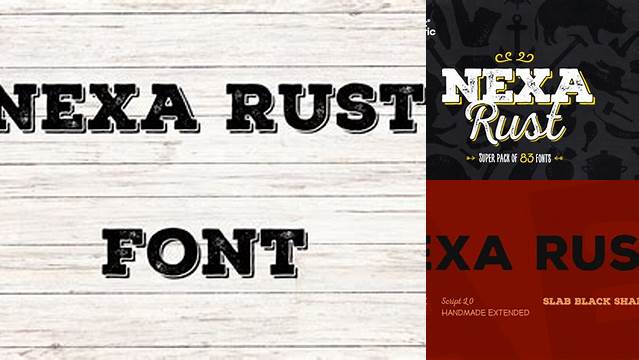
Hey there, design enthusiasts! Are you on the hunt for a font that's both stylish and incredibly versatile? Look no further than Nexa Rust, a complete font family that's available for free download. In this article, we'll dive deep into what makes Nexa Rust so special, why it's a favorite among designers, and how you can get your hands on this amazing font without spending a dime. We'll cover everything from its design and features to where you can download it safely and how to use it effectively in your projects. So, let's get started and unlock the potential of Nexa Rust!
What is Nexa Rust?
First things first, what exactly is Nexa Rust? Nexa Rust is a comprehensive and robust font family created by Fontfabric, a renowned font foundry. It's an extension of the original Nexa font family, but with a unique twist. This font family comes with a wide range of styles and weights, including regular, italic, bold, and light versions. But that's not all – Nexa Rust also includes textured and rough versions, adding a touch of vintage charm and personality to your designs. The font's versatility makes it suitable for a variety of design projects, from website design and branding to print materials and social media graphics. Its extensive character set supports multiple languages, ensuring that your designs can reach a global audience. Plus, the free download option makes it accessible to designers of all levels, allowing them to create stunning visuals without breaking the bank. The family boasts a variety of weights, from light and thin to bold and black, ensuring you have the perfect style for any design task. The addition of textured and rough versions gives Nexa Rust a unique edge, allowing you to add a vintage or handcrafted feel to your projects. The combination of a wide range of styles, weights, and textures makes Nexa Rust a top choice for designers seeking a versatile and visually appealing font.
Nexa Rust isn’t just a font; it's a complete design toolkit. Its extensive range of styles makes it suitable for everything from headlines and body text to logos and branding materials. The different weights and styles allow you to create visual hierarchy and emphasize important information. Whether you’re designing a website, a brochure, or a social media post, Nexa Rust can help you create a cohesive and professional look. One of the key benefits of using Nexa Rust is its ability to create visually interesting designs without the need for excessive visual elements. The textured versions, for example, can add depth and character to your designs with minimal effort. This is particularly useful for projects where you want to convey a sense of authenticity or vintage charm. The font's clean lines and modern feel also make it a great choice for contemporary designs. The balance between its classic and modern elements makes Nexa Rust a timeless option that will remain relevant for years to come. So, if you're looking for a font that offers both style and substance, Nexa Rust is definitely worth considering. With its extensive features and free availability, it's an invaluable asset for any designer.
Key Features of Nexa Rust
Let's take a closer look at what makes Nexa Rust stand out. One of its most notable features is its extensive range of styles. You get everything from thin and light weights for a delicate touch to bold and heavy weights for impactful headlines. This variety allows you to create visual hierarchy within your designs, guiding the viewer's eye and emphasizing key information. The inclusion of rough and textured versions is another major selling point. These styles add a unique, vintage feel that can instantly elevate your designs. They're perfect for projects where you want to convey a sense of authenticity or a handcrafted aesthetic. Besides its stylistic variety, Nexa Rust boasts a comprehensive character set, including support for multiple languages. This means you can use it for projects targeting a global audience without worrying about missing characters or symbols. The font also supports various OpenType features, such as ligatures and alternate glyphs, which can enhance the overall look and feel of your text. And of course, the fact that it's available for free download is a major perk. It's an accessible option for designers of all levels, whether you're a seasoned professional or just starting out. All of these features make Nexa Rust a top choice for designers looking for a versatile and visually appealing font.
The versatility of Nexa Rust is truly remarkable. You can use it for a wide range of projects, from website design and branding to print materials and social media graphics. Its clean lines and modern feel make it suitable for contemporary designs, while the textured versions can add a touch of vintage charm. The different weights and styles allow you to create visual interest and emphasize important information. For example, you could use the bold version for headlines and the regular version for body text. The rough and textured versions can be used for accents, logos, or backgrounds. The possibilities are endless! Whether you're designing a logo, a website, or a brochure, Nexa Rust can help you create a cohesive and professional look. The font's extensive features and free availability make it an invaluable asset for any designer. It's easy to see why Nexa Rust has become a favorite among designers worldwide. So, if you’re looking for a font that offers both style and substance, look no further than Nexa Rust. It’s a must-have tool for any designer’s toolkit.
How to Use Nexa Rust in Your Designs
Now that you've got Nexa Rust downloaded and installed, let's talk about how to use it effectively in your designs. The key to using Nexa Rust successfully is to leverage its versatility. Start by choosing the right weight and style for your project. For headlines, consider using the bold or black weights to grab attention. For body text, opt for the regular or light weights to ensure readability. The textured versions can be used for accents, logos, or backgrounds to add a unique touch. Experiment with different combinations to see what works best for your specific needs. Consider the overall tone and style of your design. If you're aiming for a modern and clean look, stick to the regular and bold weights. If you want to add a touch of vintage charm, use the textured or rough versions. Play with different sizes and spacing to create visual hierarchy and guide the viewer's eye. Make sure the font complements the other elements in your design. For example, pair Nexa Rust with complementary fonts for headings or body text. Keep the font sizes appropriate for your target audience.
In addition to these basic tips, think about how you can use Nexa Rust to create a cohesive and professional look. Use the same font family across all elements of your design, from your website to your social media graphics. Create a style guide that outlines the different weights and styles you'll be using, along with their corresponding sizes and colors. This will help you maintain consistency and ensure that your brand looks polished and professional. By following these tips, you can create visually stunning designs that make a lasting impression. The possibilities are endless, so get creative and have fun experimenting with this amazing font! Don't be afraid to try different combinations of weights, styles, and sizes. Play with different colors and backgrounds to see how Nexa Rust interacts with other visual elements. The more you experiment, the more creative and effective your designs will become. With a little practice, you'll be able to create stunning visuals that captivate your audience and make your brand stand out.
Best Practices and Tips for Using Nexa Rust
To get the most out of Nexa Rust, here are some best practices and tips. Firstly, always consider the context of your design. Is it a website, a poster, or a social media post? The font's usage should align with the purpose. For example, if it's a website, ensure that the font is legible on different screen sizes. For print materials, consider the paper type and printing process to ensure that the textured versions look as intended. Always choose the appropriate weight and style for the job. Avoid using too many different weights and styles in a single design, as this can make it look cluttered and unprofessional. Instead, create visual hierarchy by using different weights for headlines, subheadings, and body text. Use the textured versions sparingly. They can be a great way to add a unique touch, but using them too much can make your design look overwhelming. Consider pairing Nexa Rust with other fonts. While Nexa Rust is versatile, it might not be the perfect choice for every design element. Pair it with a complementary font for headings or body text to create visual contrast and interest.
Conclusion: Embrace the Versatility of Nexa Rust
So, there you have it! Nexa Rust is a fantastic free font family that offers incredible versatility and style for your design projects. From its extensive range of weights and styles to its unique textured versions, Nexa Rust is a valuable tool for any designer. Remember to download the font from a safe and legal source like Fontfabric's official website. Then, experiment with different weights, styles, and combinations to create visually stunning designs. By following the tips and best practices outlined in this article, you can unleash the full potential of Nexa Rust and elevate your designs to the next level. Whether you're a seasoned professional or just starting out, Nexa Rust is a must-have font for your toolkit. So go ahead, download it, and start creating amazing designs today! Its versatility makes it perfect for various projects, and its free availability makes it accessible to everyone. Embrace the possibilities and have fun designing! Happy designing, guys!